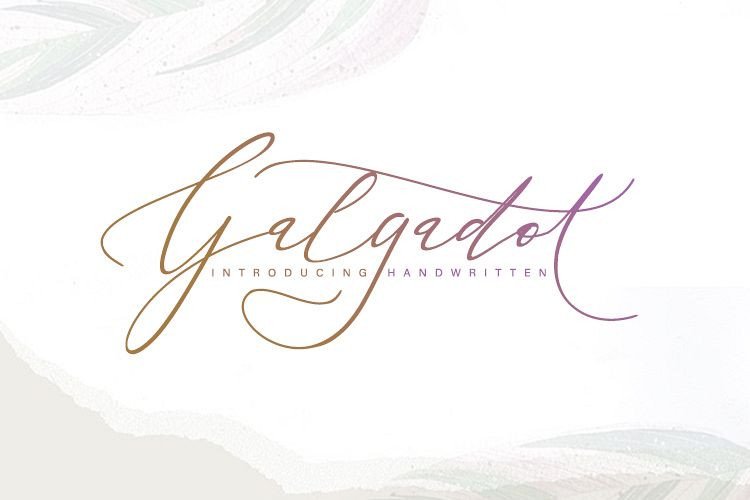
Galgadot Handwritten Font
A new luxury handwritten font. Every single letter has been creative carefully. This handwritten font is ideal for branding and decorates​ your any project. Introducing Galgadot Handwritten Font. Galgadot Stylish Font a classy, fun and fabolous dreamy font inspired by luxury fashion. To keep it luxurious, the Galgadot Font contains 60 ligatures, 26 titling and 10 underscores. Galgadot great for logo, printed quotes, badge, insignia, packaging, headline, poster, t-shirt/apparel, greeting card, and wedding invitation, & etc.